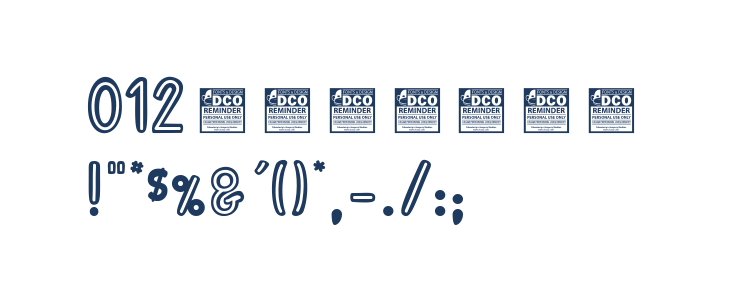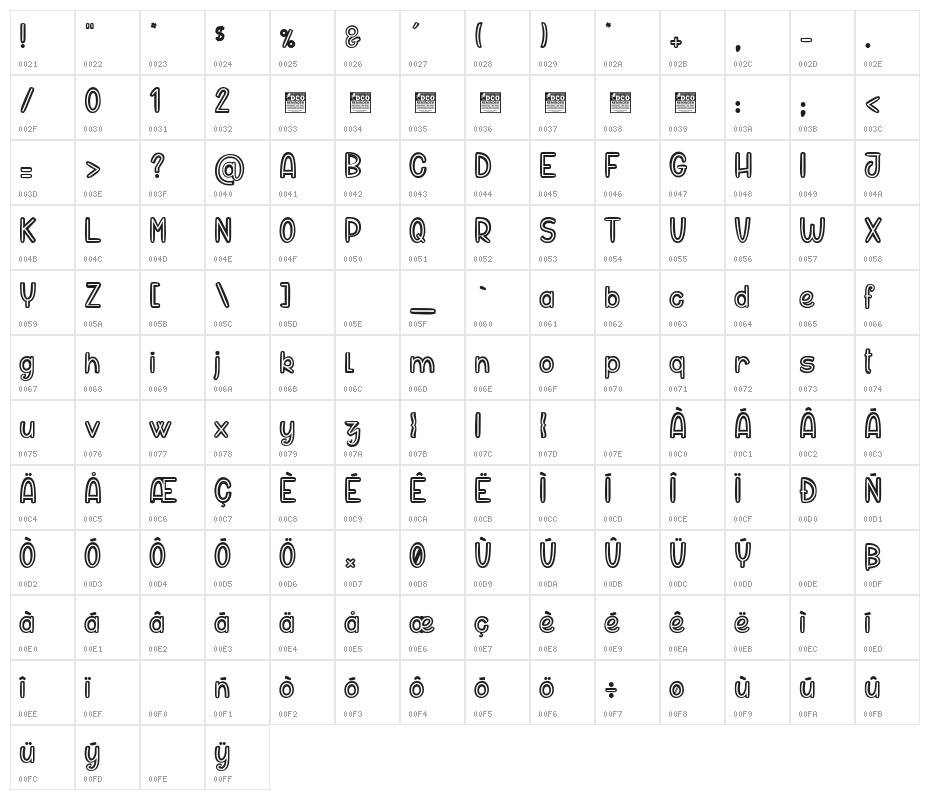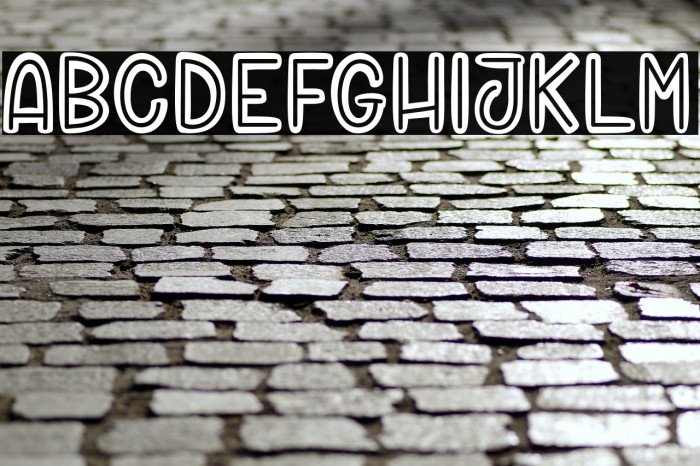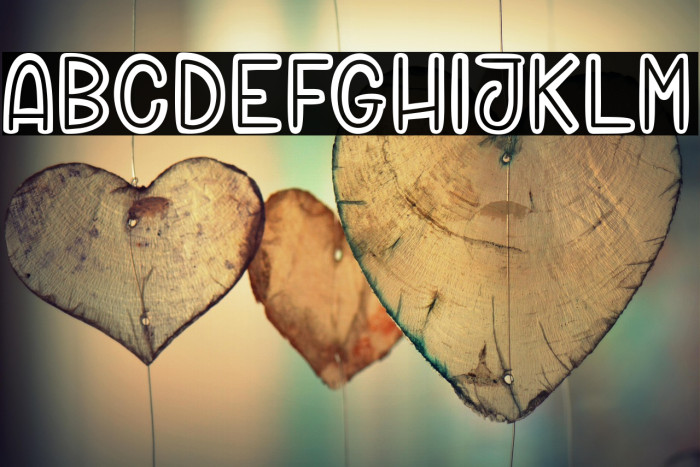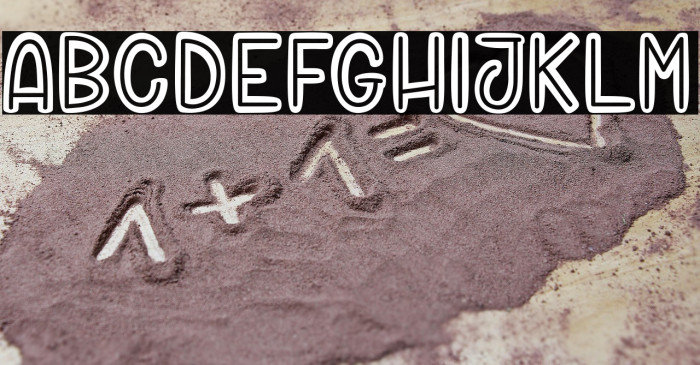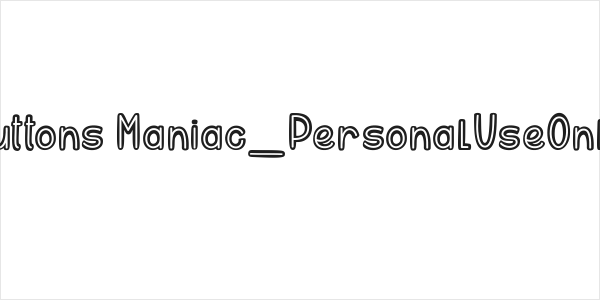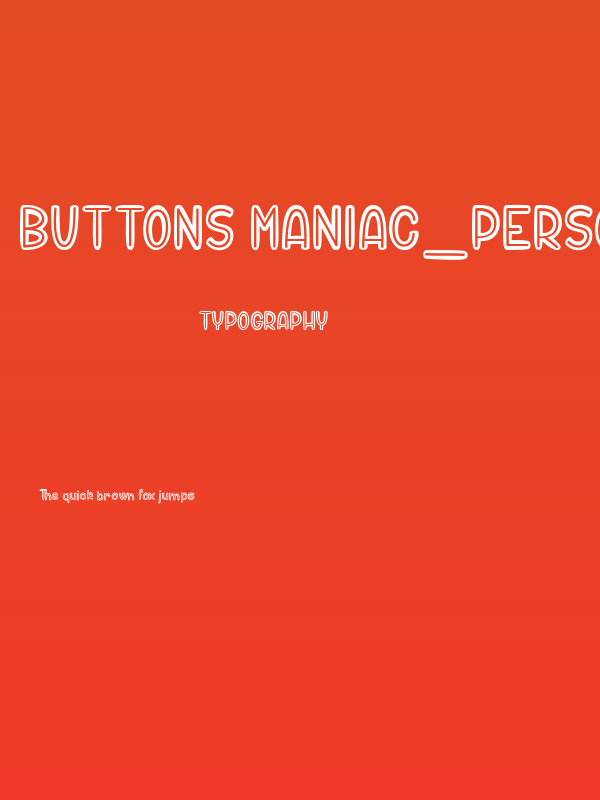
Buttons Maniac_PersonalUseOnly Font
Buttons Maniac_PersonalUseOnly Description
This playful and bold font features a unique outline style that gives each character a distinct, eye-catching appearance. The letters are rounded and slightly irregular, adding a whimsical and fun touch to the overall design. The uppercase and lowercase letters maintain a consistent style, with a slight variation in the curves and angles, enhancing the font's quirky personality. The numbers and special characters follow the same design principles, ensuring a cohesive look across all elements. This font is perfect for projects that require a lively and engaging aesthetic.
Overall StylePlayful, Whimsical
Proposed ProjectsIdeal for children's book covers, playful branding, party invitations, and creative posters.